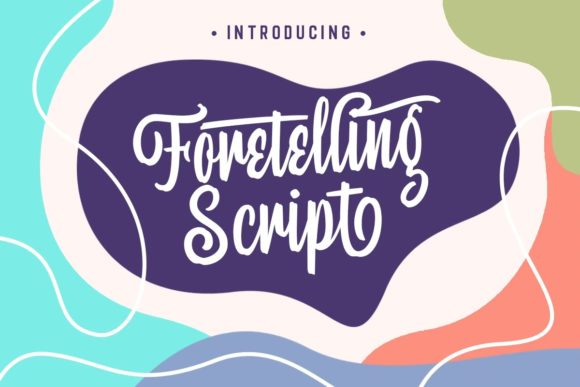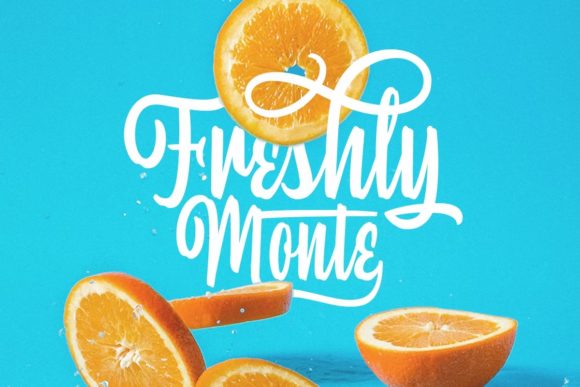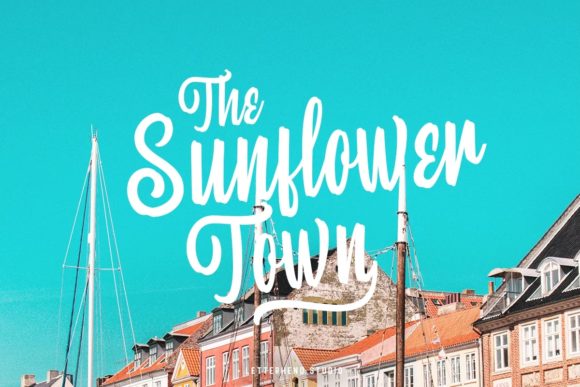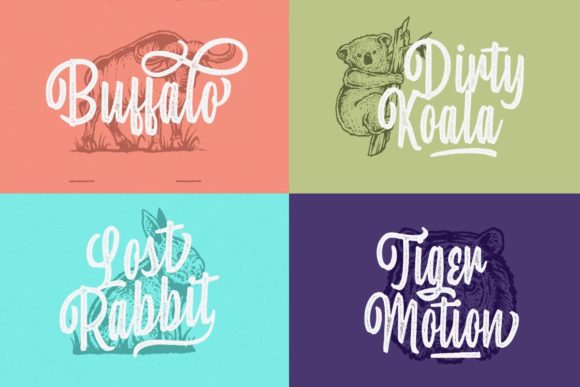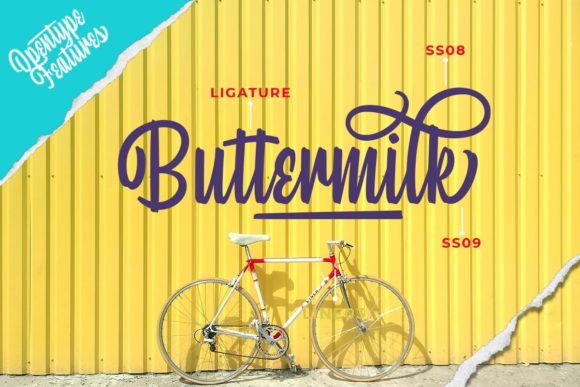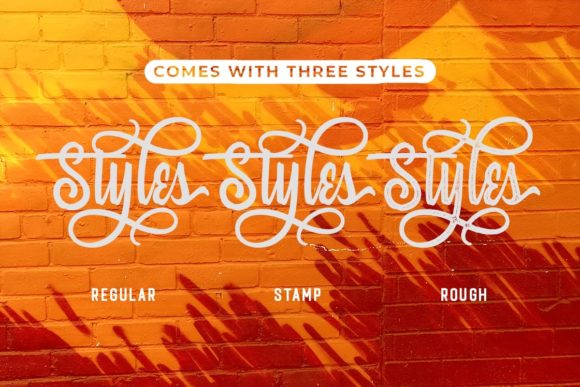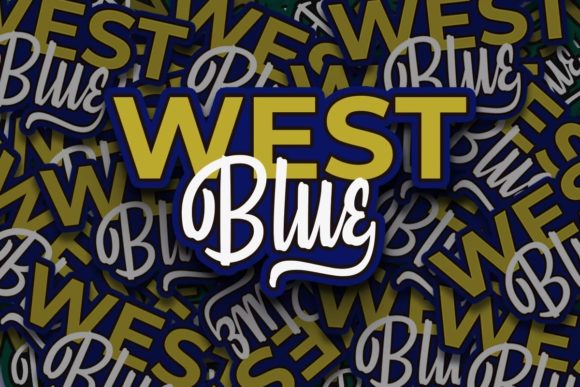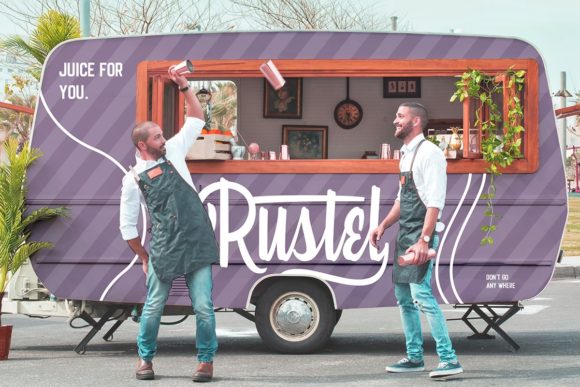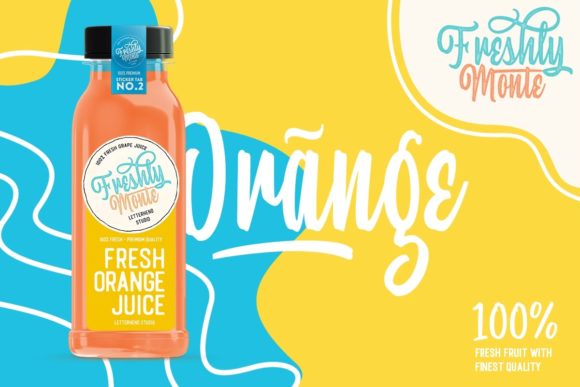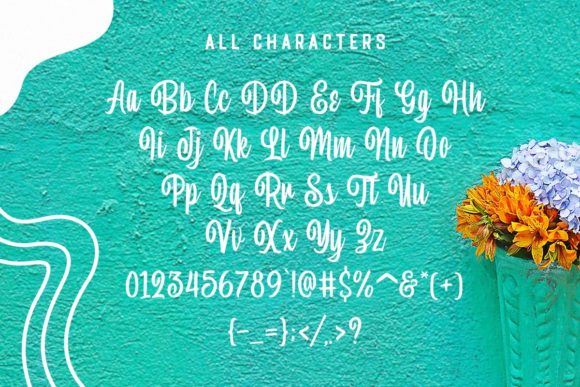
Foretelling Script Font
About Foretelling Script Font
Introducing “Foretelling Script,” a captivating and sophisticated handwritten font that will add a touch of elegance to your designs. With its flowing lines and graceful curves, “Foretelling Script” exudes a sense of charm and beauty that will leave a lasting impression. Here are some features that make “Foretelling Script” stand out:
Elegant Flow: The smooth and flowing lines of “Foretelling Script” create a sense of grace and sophistication, making it perfect for a wide range of projects. Whether you’re designing wedding invitations, logos, greeting cards, or any other creative endeavor, this font will elevate your work to new heights.
Varying Baseline: The varying baseline of “Foretelling Script” adds a touch of organic and handcrafted appeal to your text. It replicates the natural flow of handwritten calligraphy, giving your designs an authentic and personal touch.
Gorgeous Glyphs and Alternates: This font comes with a wide range of stunning glyphs and alternates, providing you with endless design possibilities. Experiment with different combinations to create a truly unique and one-of-a-kind look.
Contemporary Yet Timeless: “Foretelling Script” strikes the perfect balance between contemporary elegance and timeless charm. It maintains its classical calligraphic influences while also feeling fresh and modern, making it a versatile choice for various design styles.
Attention to Detail: The intricate details of each character in “Foretelling Script” showcase the careful craftsmanship that went into creating this font. The result is a visually stunning and harmonious typeface that enhances the overall aesthetic of your designs.
Whether you’re working on wedding stationery, branding materials, social media graphics, or any other project that requires a touch of sophistication, “Foretelling Script” will not disappoint. Its seamless flow and beautiful alternates make it a standout font that will add elegance and flair to your work. Fall in love with the beauty of “Foretelling Script” and elevate your projects to the highest levels of creativity and style.